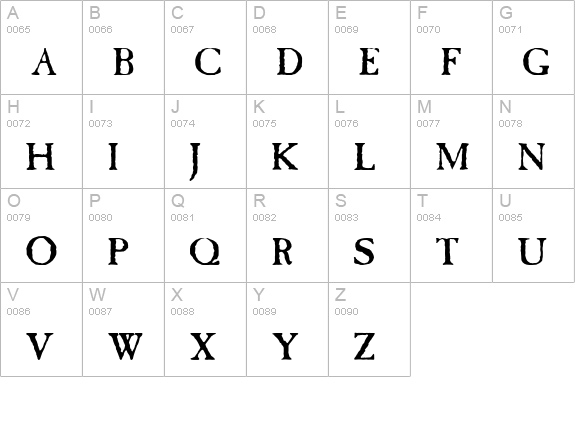
Caslon Antique is a classic serif font that exudes elegance and sophistication. With its vintage appeal and timeless charm, this font is perfect for adding a touch of old-world charm to any design project. The delicate serifs and intricate details of Caslon Antique make it a versatile choice for a wide range of applications, from invitations to branding to editorial design. One of the best things about Caslon Antique is that it is available for free download at FontsMarket.com. This means that you can easily access this beautiful font and use it in your projects without any cost. Whether you are a professional designer looking for a new typeface to add to your collection or an amateur enthusiast wanting to experiment with different fonts, Caslon Antique is a fantastic option that won't break the bank. Overall, Caslon Antique is a stunning font that combines historical charm with modern sensibilities. Its timeless beauty and versatile design make it a valuable addition to any designer's toolkit. Download Caslon Antique for free today and add a touch of vintage elegance to your next project.